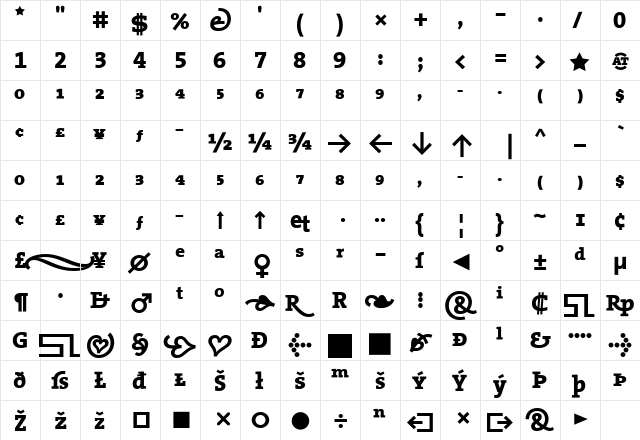
TheSerif ExtraBold Font Preview
TheSerif ExtraBold
TheSerif ExtraBold Font Details
| Style | ExtraBold |
| Foundry | Copr. Luc as de Groot |
| Copyright | Copr. Luc as de Groot 1994 |
Design Context for TheSerif Typeface
TheSerif brings classic typographic sensibility to the table — its serifs and measured letterforms reflect centuries of print heritage. Its bold stroke weight gives it real presence on the page.